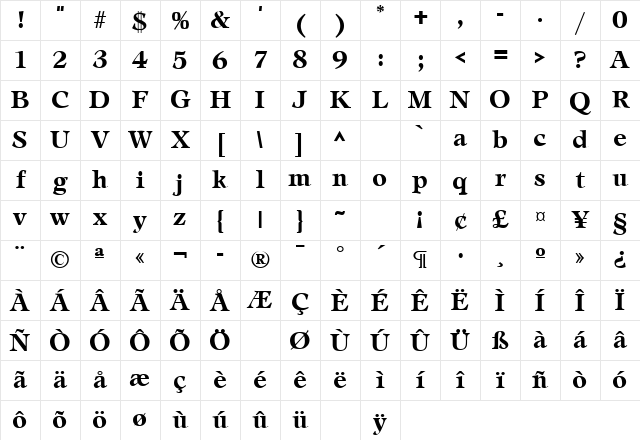
Leaming SF Bold
Leaming SF Family
Design Context for Leaming SF
Leaming SF is a composed and adaptable typeface that performs quietly and consistently across a wide range of design contexts. Its bold stroke weight gives it real presence on the page.